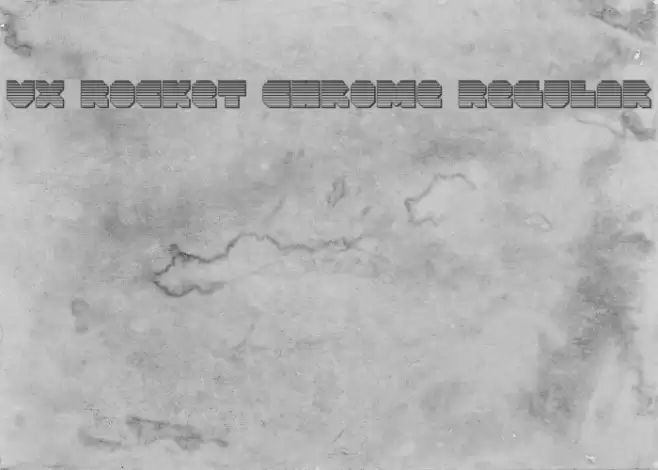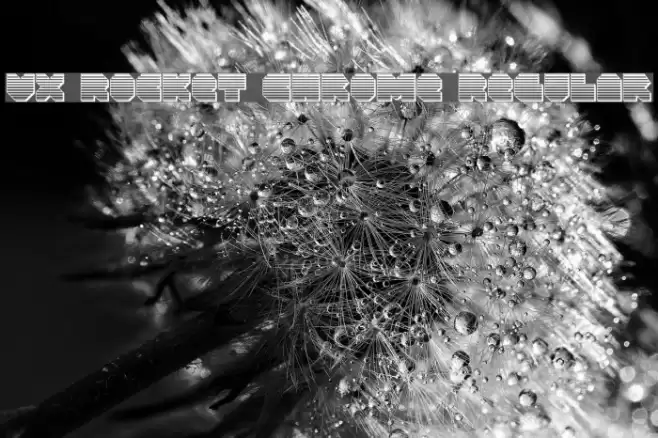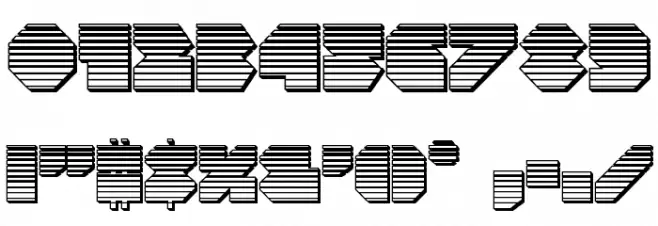
VX Rocket Chrome Regular Font
VX Rocket Chrome Regular Description
This font features a bold, futuristic design with a distinctive striped pattern running horizontally across each character. The geometric shapes and sharp angles give it a modern, industrial feel. The uppercase and lowercase letters maintain a consistent style, creating a cohesive look. The numerals and special characters follow the same design principles, ensuring uniformity across all elements. The font's unique aesthetic makes it stand out, ideal for projects that require a strong visual impact.
A bold, futuristic font with a distinctive striped pattern and geometric shapes from Futuristic fonts.
- Proposed Projects: Ideal for sci-fi themed designs, video game titles, posters, and branding that requires a modern, industrial look.